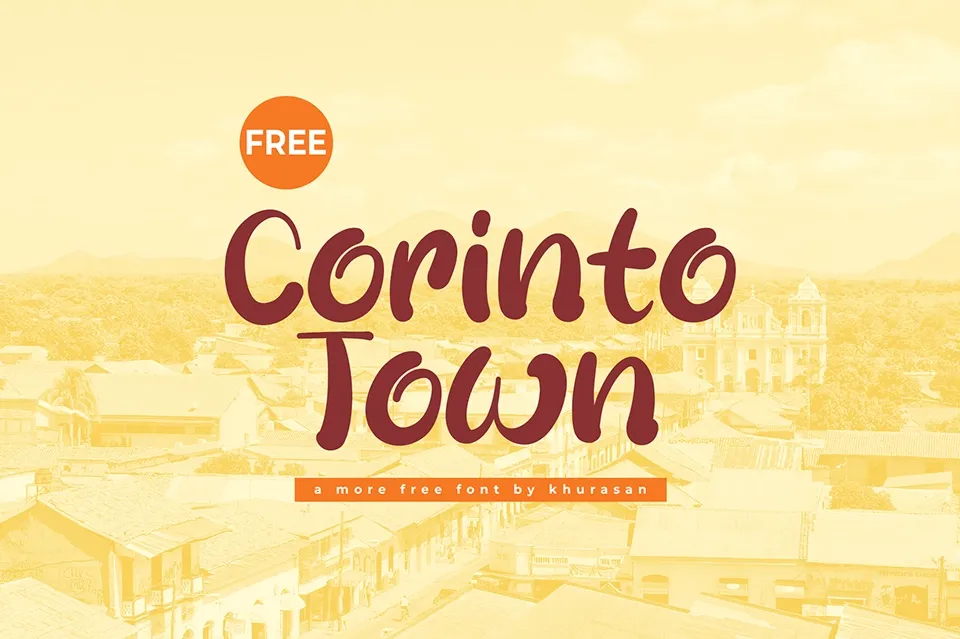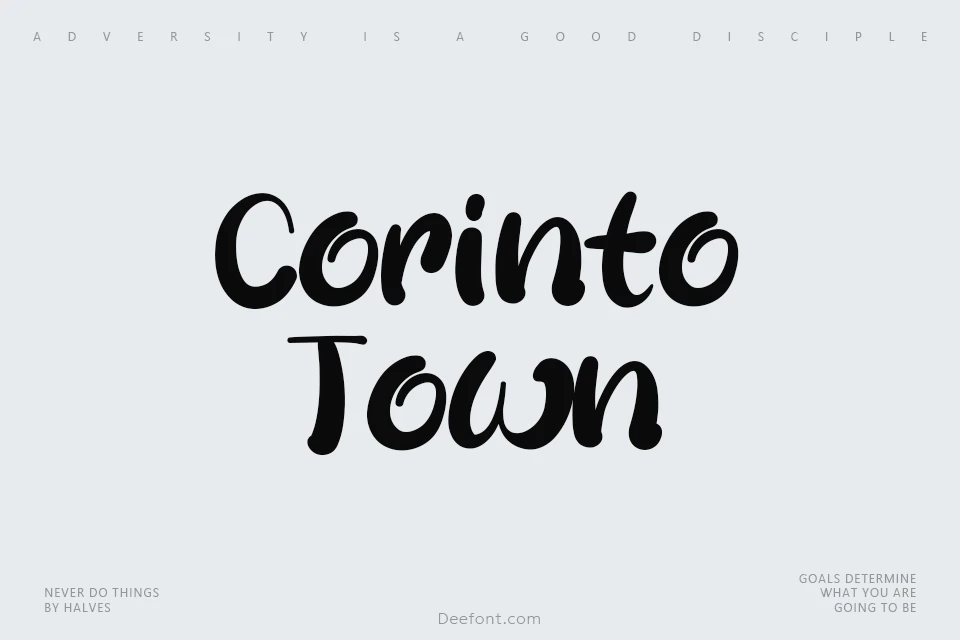
Corinto Town Font
Corinto Town Font is a playful and versatile handwritten typeface that brings a casual, friendly vibe to any design project. Created by Khurasan Studio, this font features both uppercase and lowercase characters, numbers, punctuation, and symbols in OTF and TTF formats. Its whimsical cartoon style and energetic personality make it perfect for greeting cards, children’s books, branding, posters, wedding invitations, t-shirts, social media posts, and various digital applications. The font’s bold, expressive display combines contemporary flair with high legibility, making it suitable for both digital and physical applications. Available free for both personal and commercial use, Corinto Town offers designers a fun and approachable typeface option for their creative projects.